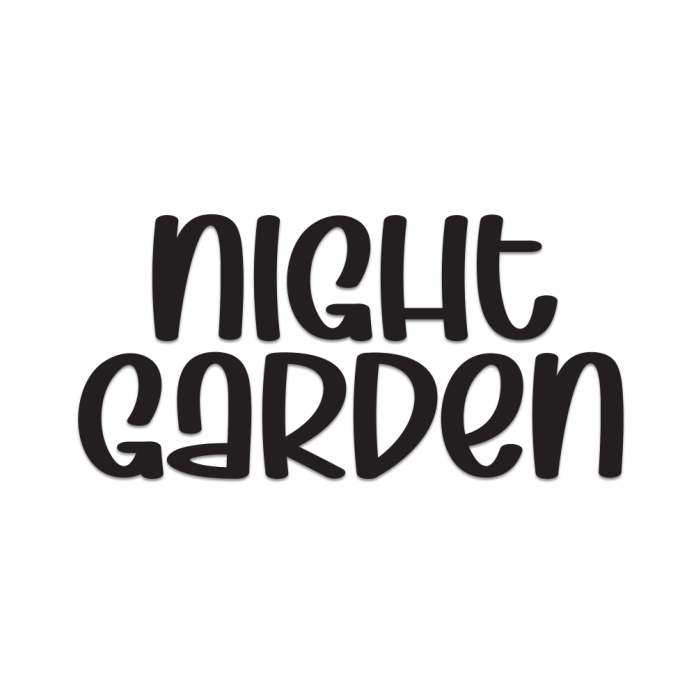
Night Garden is a sophisticated display font that combines elegance with mystery. Inspired by moonlit florals and enchanted evenings, this typeface is perfect for high-end branding, packaging, event invitations, book covers, and any design project that calls for a touch of class and allure.
With graceful curves and artistic flair, Night Garden brings a refined yet dreamy atmosphere to your creative work.
Stylish and Decorative Display Typeface
Elegant Letterforms with Unique Personality
Great for Branding, Titles, and Editorial Design
Uppercase & Lowercase Letters
Numerals and Punctuation
Multilingual Support
Let your designs bloom in the moonlight with Night Garden.